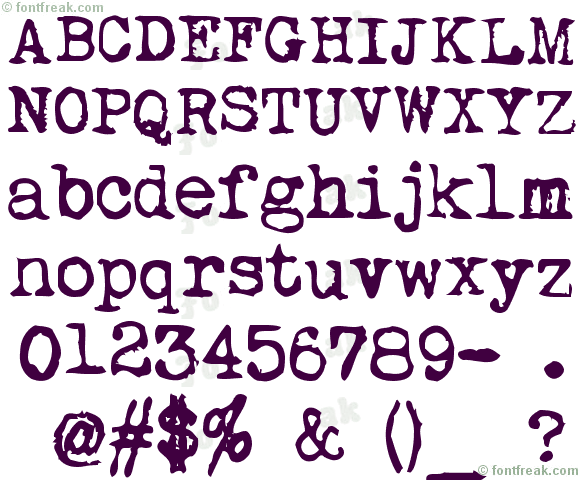
My Underwood
About My Underwood
My Underwood by Michael Tension is a distinctive decorative typeface that captures a vintage charm reminiscent of classic typewriter fonts. This font is characterized by its irregular stroke weight and slightly distressed appearance, giving it an authentic, handcrafted feel. The contrast between thicker and thinner lines adds a sense of depth, while the uneven spacing between letters contributes to its unique, quirky aesthetic. The playful, somewhat whimsical design features decorative elements that evoke nostalgia, making it an excellent choice for projects that seek to convey a sense of history or individuality.
This font is particularly suitable for a variety of creative applications. It works wonderfully for wedding invitations, where its charming character can set a romantic tone. Additionally, it is perfect for movie posters, especially for indie films looking to capture a retro vibe. Restaurant menus can benefit from the font's inviting style, making dishes feel more approachable and appealing. Furthermore, My Underwood is an excellent choice for branding efforts aimed at artisanal products, where the handcrafted look resonates with consumers seeking authenticity.
What sets My Underwood apart is its ability to blend nostalgia with modern design sensibilities. The font is not just a typeface; it tells a story, inviting users to explore its character and charm. Whether you’re looking to add a unique flair to your designs or evoke a sense of nostalgia, the My Underwood font free download is a resource you won’t want to miss.